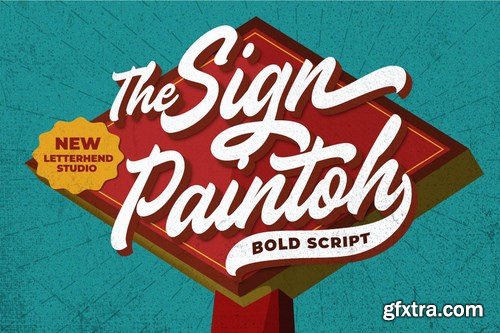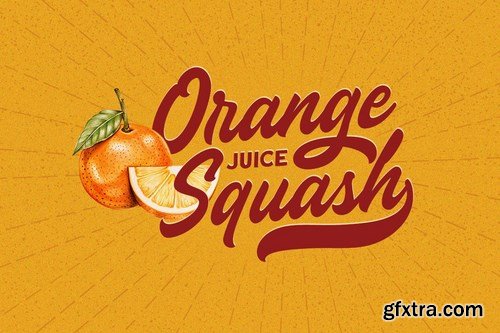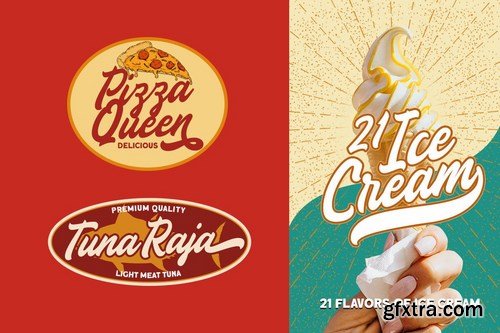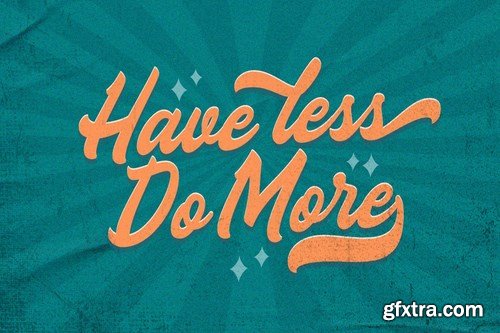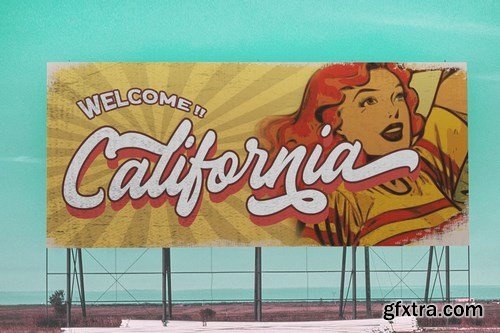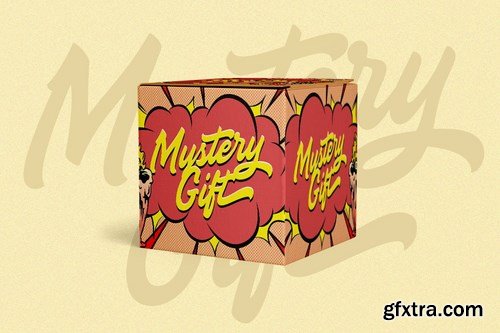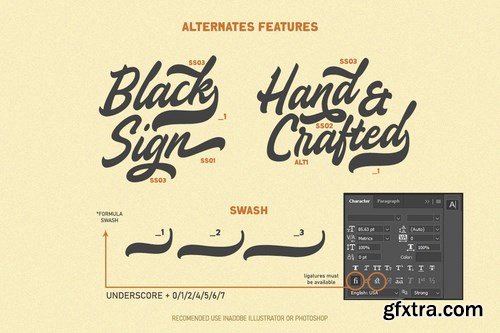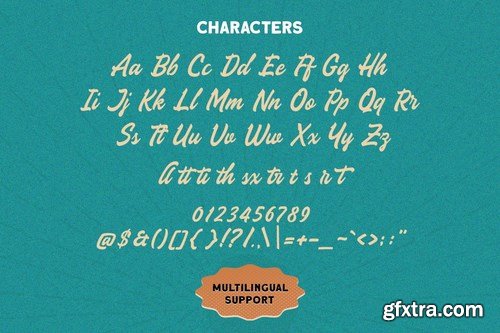
The Sign Paintoh is a retro bold script which will bring you back to 60s feel. The swashes makes this font looks great for retro lettering which you can create in a sec! This font perfectly made to be applied especially in logo, and the other various formal forms such as invitations, labels, logos, magazines, books, greeting / wedding cards, packaging, fashion, make up, stationery, novels, labels or any type of advertising purpose.
Features :
uppercase & lowercase numbers and punctuation multilingual ligatures alternates swashes PUA encoded